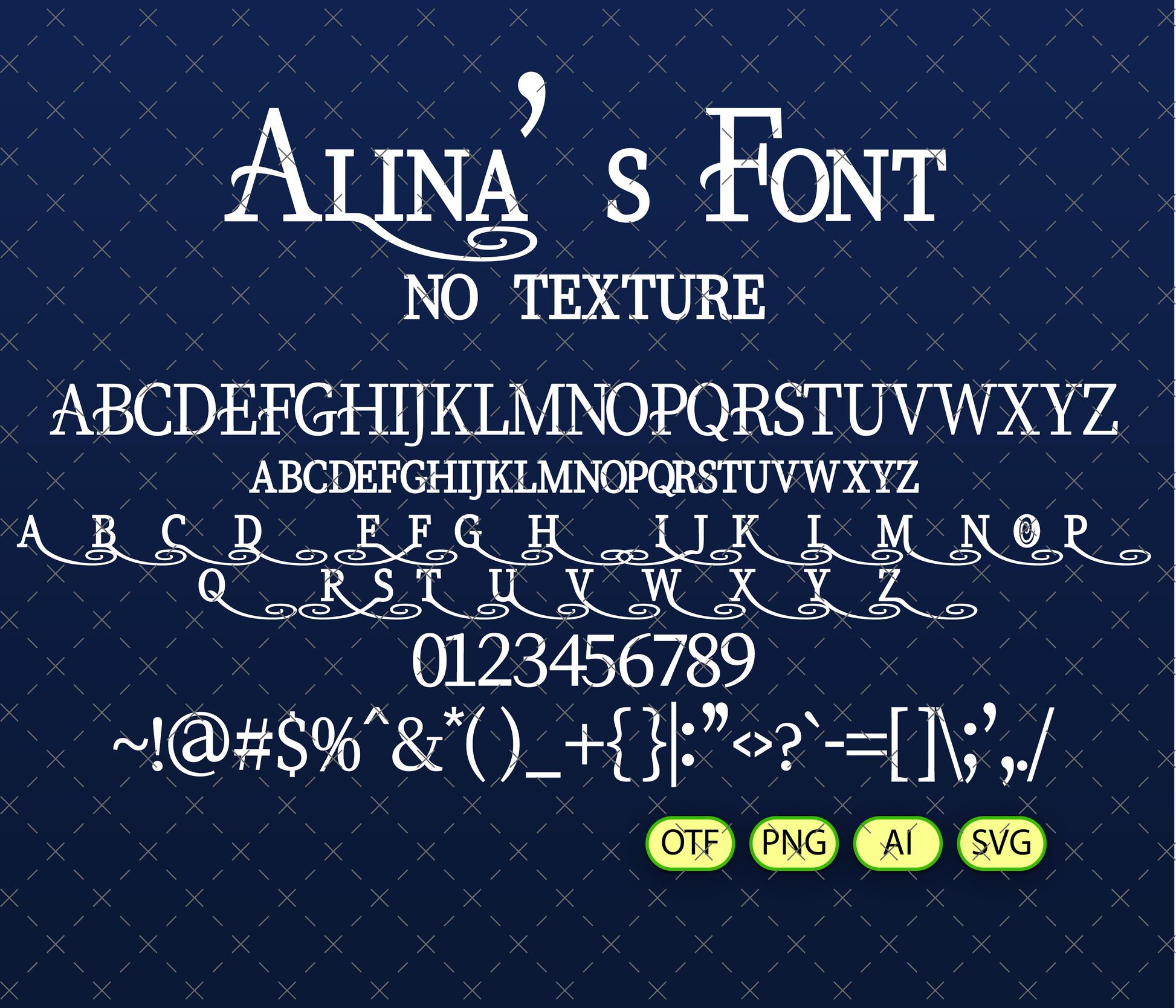
French Kitty Elegance Font Plain Style
Step into the charming world of refined cats with our French Kitty Elegance Font Plain Style, capturing the essence of belle époque sophistication and melodic feline escapades. Perfect for classic animation enthusiasts, celebration organizers, media producers, and design specialists, this font brings the graceful, whimsical character of aristocratic pet adventure sagas to your projects. Create standout invitations, commercial goods, or web content with the delightful appeal of cultured cat narratives.
Our French Kitty Elegance Font Plain Style features graceful, stylized letterforms with smooth, clean finishes reflecting the world of distinguished feline personalities and European cityscape atmospheres.
Our font pays tribute to the world of melodic pet stories and vintage animation culture, empowering your projects with its graceful and whimsical character. Whether crafting supporter materials, designing nostalgic products, or adding a refined touch to personal projects, this font communicates the delightful essence of sophisticated entertainment. Ready to inject European charm into your creations? This font is your key to standout, impactful design.